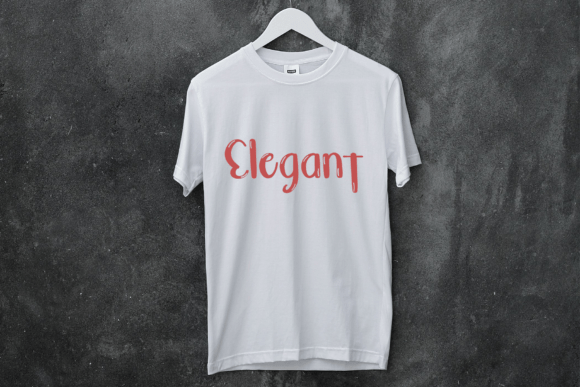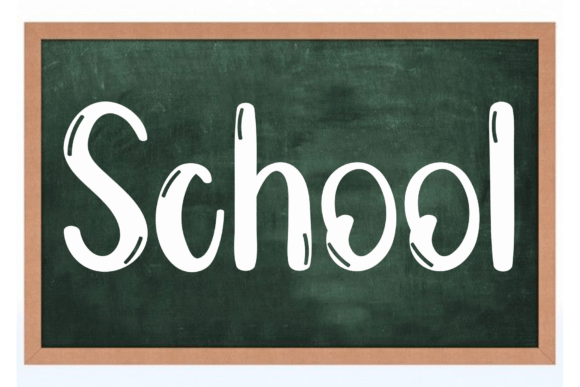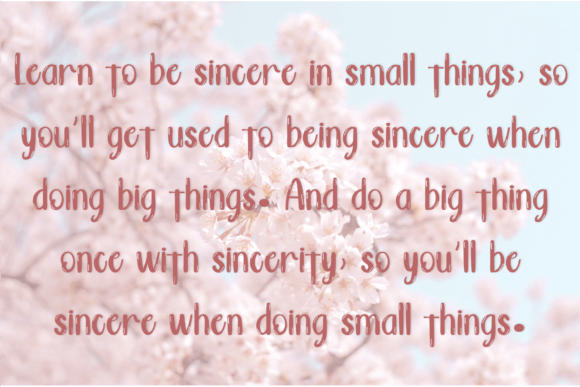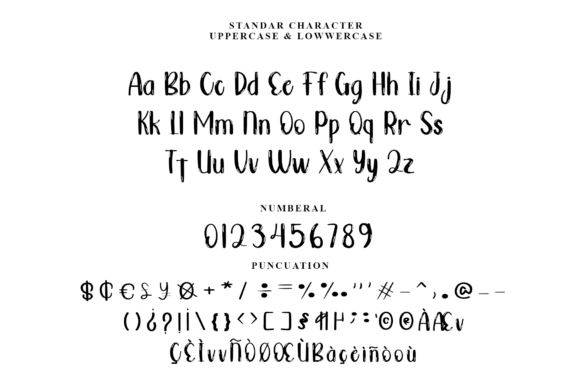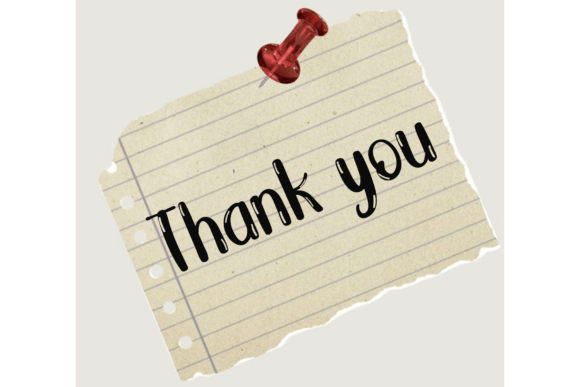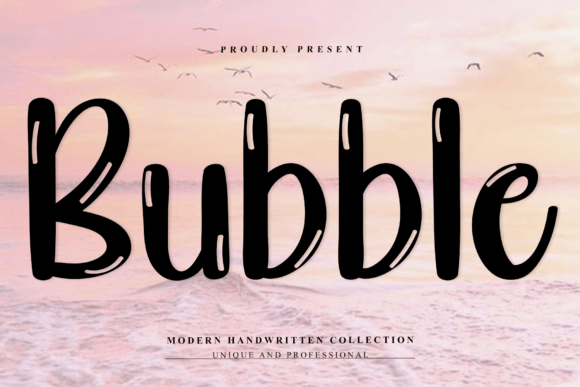
The Charm of Bubble Font: A Designer’s New Best Friend
I’ll never forget the time I was working on a project for a client who wanted a font that felt warm, personal, and friendly. I had been searching for hours, but nothing seemed quite right. That was when I stumbled upon Bubble font. Its smooth strokes and natural curves immediately caught my eye, and I knew I had found the perfect fit. In this article, I’ll share my experience with Bubble font, its features, and how to make the most of it in your designs.
An Honest Review of Bubble Font
What I Love About Bubble Font ✨
- ✅ Effortless style: Bubble font has a relaxed, casual vibe that makes it perfect for a wide range of design projects.
- ✅ Readability: The font is easy to read, even at smaller sizes, making it ideal for body text or captions.
- ✅ Versatility: Bubble font works well in both digital and print designs, from social media posts to invitations and branding materials.
- ✅ Personality: The font has a unique charm that adds a personal touch to any design.
- ⚠️ Limited formal applications: Bubble font is best suited for informal designs, and may not be the best choice for more formal projects.
- ⚠️ May not work well in very small sizes: While the font is generally readable, it may lose some of its charm when used in very small sizes.
Bubble font comes with a range of OpenType features and glyphs that can add more variety and interest to your text. These features include:
| Feature | Description |
| Stylistic Alternates | Swappable characters that offer alternative styles and shapes. |
| Glyphs | Special characters and symbols that can add more interest to your text. |
The Backstory of Bubble Font
Bubble font was designed with the goal of creating a font that felt warm, personal, and friendly. The designer wanted to capture the charm of authentic handwriting, while still making it easy to read and use in a variety of design projects.
| Author | Preketek texs |
Q: What is Bubble font best suited for?
A: Bubble font is ideal for quotes, invitations, branding, and social media posts, where a personal and friendly touch is desired.
Q: Is Bubble font easy to read?
A: Yes, Bubble font is designed to be easy to read, even at smaller sizes.